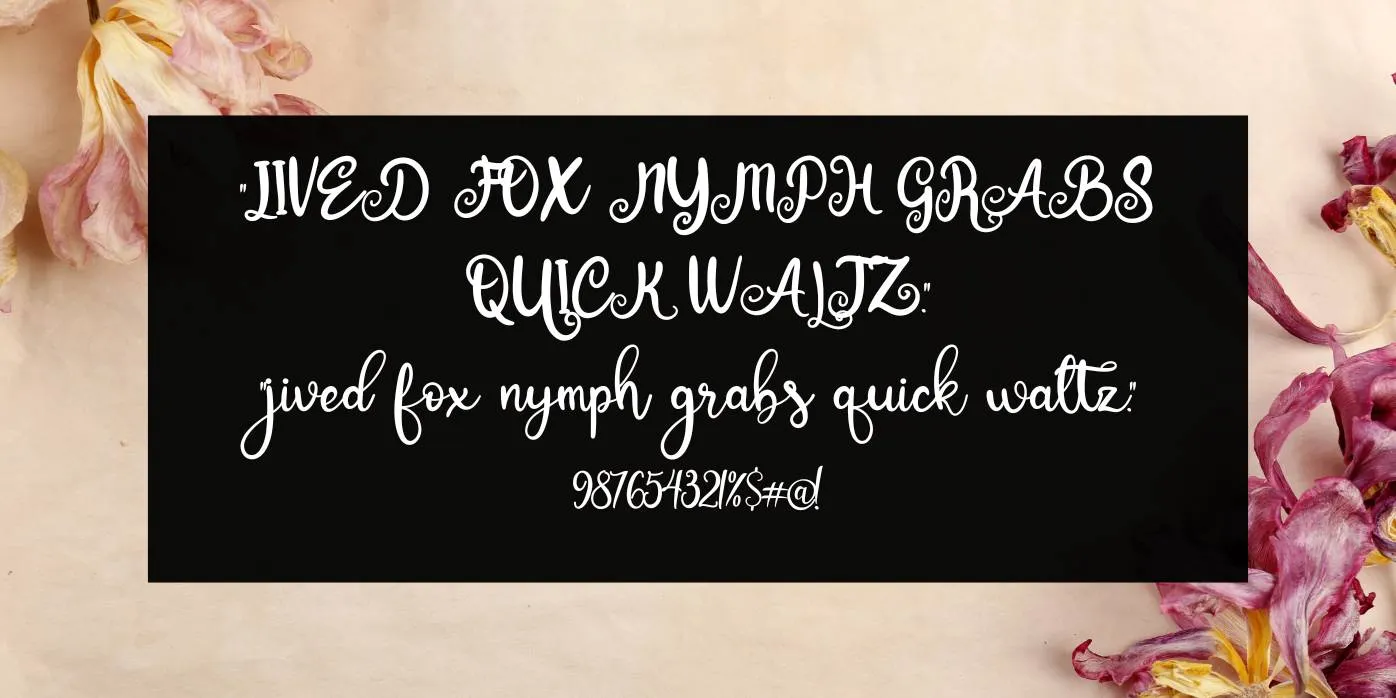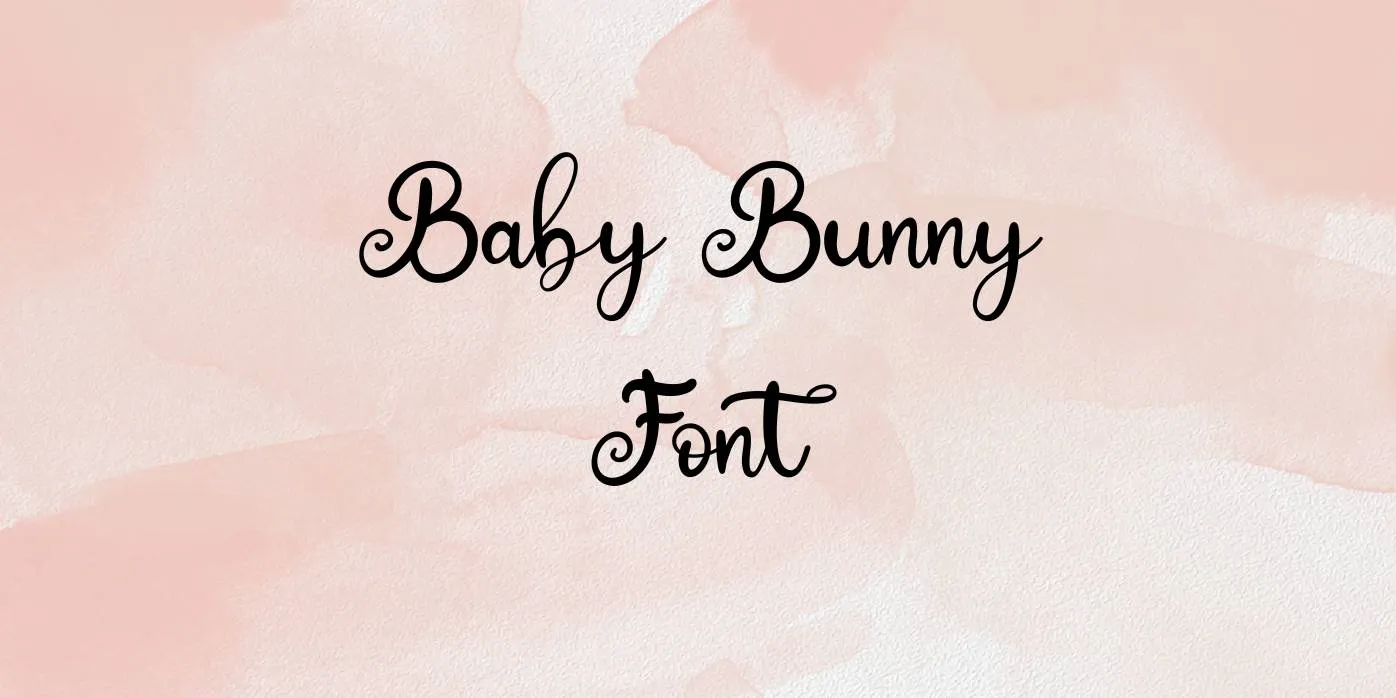
Baby Bunny Font
Here we discuss detailed information about Baby Bunny Font. This gorgeous typeface is a very clean and versatile font. It was designed by Burhan Afif and manufactured by Hans Co. It can be used to make both personal and commercial projects but you need to buy the license for commercial projects.
It also has the pairing quality with other fonts like bellisa font to give a more attractive look to your projects. Usage It can be used for making so many different projects because of its sweet but modern look. This font has unique types of characters, symbols, small letters, capital letters, special characters, numbers, and punctuation. You can make different types of logos by using this font.
It can be used for making modern calligraphy also. You can create interesting headlines and titles for movies. This font is a good choice for making wedding invitations or other event invitations. For advertisement purposes, you can also use this font.
The magazine cover and book cover can be made with this font in a very attractive look. It can be used for all types of marketing designs, and purposes, such as posters, banners, and many more. You can easily copy and paste this font from all your various types of designs. Making covers of photo albums can also be done by using it.
This stunning typeface is good for both types of media print and digital. Due to its look, it is used by many big organizations. You can make or edit your designs in Canva and Adobe Photoshop by using this font. It is also used for making different and unique web designs.